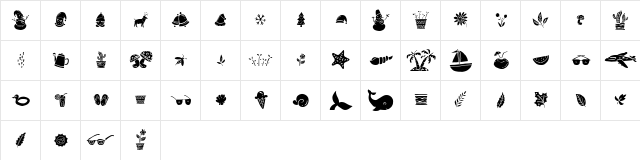
All Season Ornaments Regular
Design Context for All Season Ornaments Typeface
All Season Ornaments is built around its visual character rather than neutral utility — its distinctive forms are designed to make an impression at display sizes.